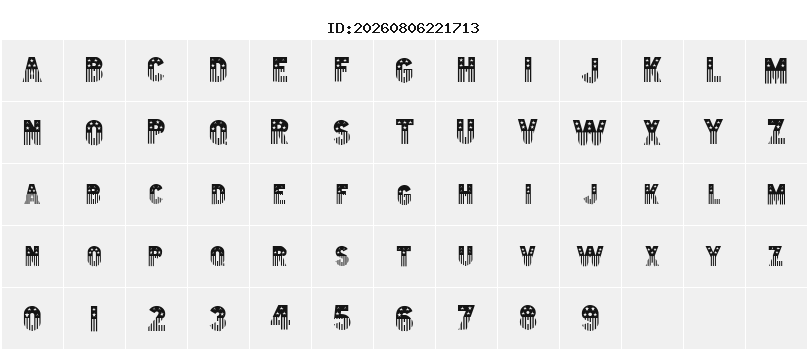
Old Glory Preview
• Font Name: Old Glory
• Full Font Name: Old Glory
About Old Glory.ttf
Old Glory.ttf is a modern, elegant sans-serif font designed for ultimate readability and visual harmony. Perfect for branding, headlines, web design, and print materials.